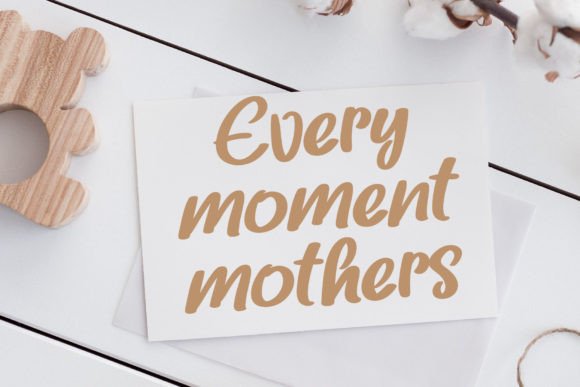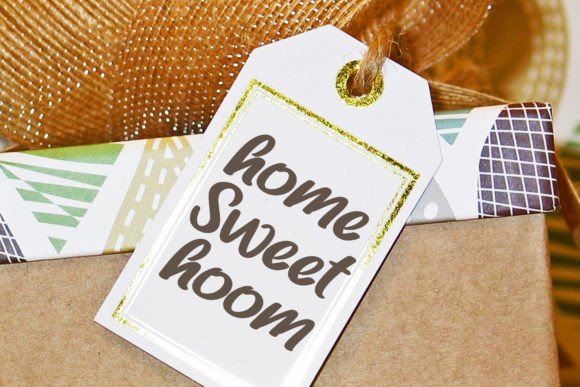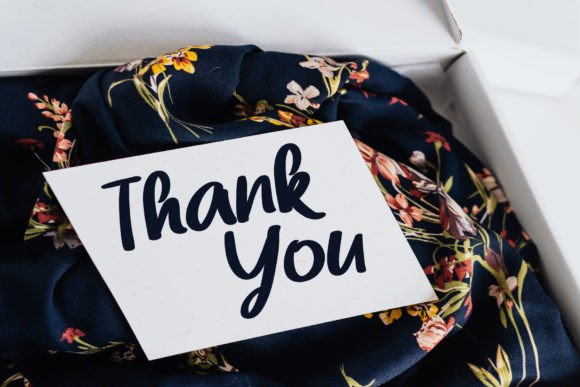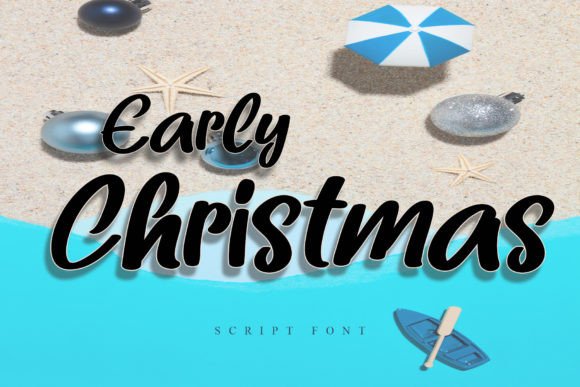
Introducing Early Christmas Font: A Timeless and Elegant Handwritten Font
Are you looking for a font that exudes elegance and sophistication for your holiday projects? Look no further than the Early Christmas Font, a beautiful handwritten font that is sure to capture the essence of the season. With its neat and beautiful design, this font is perfect for designers and crafters who want to add a touch of class to their work.
What Makes Early Christmas Font So Special?
Early Christmas Font is a unique and stylish font that is described by its elegant touch. Its incredibly distinct and timeless style makes it perfect for a wide range of projects, from holiday cards and invitations to festive posters and social media graphics. Whether you’re a professional designer or a crafter looking for a special font to use in your handmade projects, Early Christmas Font is sure to impress.
Key Features of Early Christmas Font
• Elegant and Refined Design: Early Christmas Font features a beautiful, handwritten design that is both elegant and refined. Its neat and beautiful style makes it perfect for a wide range of projects.
• Timeless Style: Unlike some fonts that may look dated after a few years, Early Christmas Font has a timeless style that will never go out of fashion. Its classic design ensures that your projects will look great for years to come.
• Incredibly Distinct: With its unique and stylish design, Early Christmas Font is sure to stand out from the crowd. Its distinct style makes it perfect for designers and crafters who want to create projects that are truly special.
• Perfect for Holiday Projects: As its name suggests, Early Christmas Font is perfect for holiday projects. Its festive and elegant design makes it ideal for use in holiday cards, invitations, posters, and more.
How to Use Early Christmas Font in Your Projects
Early Christmas Font is a versatile font that can be used in a wide range of projects. Here are a few ideas to get you started:
• Holiday Cards and Invitations: Use Early Christmas Font to create beautiful and elegant holiday cards and invitations. Its festive design is sure to get your recipients in the holiday spirit.
• Festive Posters and Graphics: Create eye-catching posters and graphics using Early Christmas Font. Its stylish design is sure to grab attention and add a touch of class to your projects.
• Social Media Graphics: Use Early Christmas Font to create festive and engaging social media graphics. Its unique design is sure to help your posts stand out from the crowd.
• Handmade Crafts: Early Christmas Font is also perfect for use in handmade crafts, such as scrapbooking, stenciling, and more. Its elegant design is sure to add a touch of sophistication to your projects.
Tips for Getting the Most Out of Early Christmas Font
Here are a few tips for getting the most out of Early Christmas Font:
• Experiment with Different Sizes and Colors: Don’t be afraid to experiment with different sizes and colors when using Early Christmas Font. Its elegant design looks great in a variety of sizes and colors.
• Pair it with Other Fonts: Early Christmas Font pairs well with a variety of other fonts. Try pairing it with a bold font for a striking contrast, or with a script font for a more elegant look.
• Use it in Combination with Images: Early Christmas Font looks great in combination with images, such as festive holiday graphics or beautiful photographs. Try using it to add a touch of elegance to your images.
Font Name Early Christmas Font
Early Christmas Font is a beautiful and elegant handwritten font that is perfect for designers and crafters who want to add a touch of class to their holiday projects. Its timeless style and incredibly distinct design make it a versatile font that can be used in a wide range of projects. Whether you’re creating holiday cards and invitations, festive posters and graphics, or handmade crafts, Early Christmas Font is sure to impress.